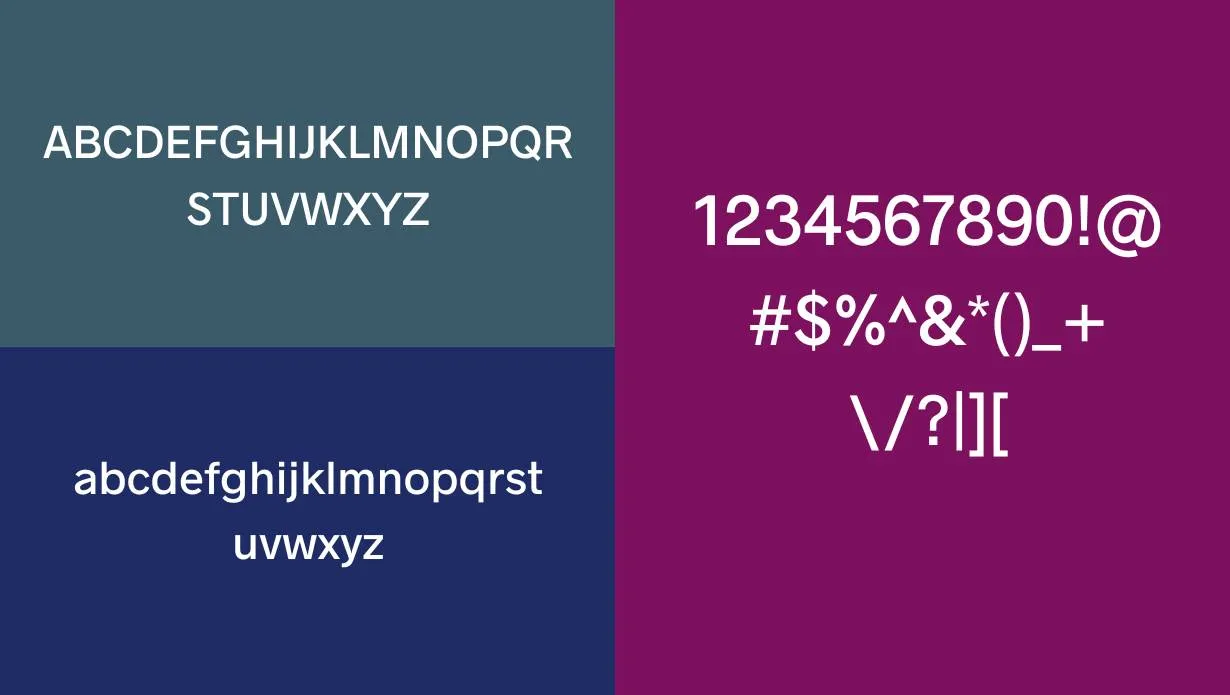
Radnika Font has a clean and modern design, suitable for a wide range of design applications.
Its straightforward lines and well-proportioned letterforms make it a practical choice for branding, web design, and packaging, providing a contemporary and organized aesthetic to your projects. For a design that is distinct and visually striking, consider combining this font with the Geo Sans Font.
| Name | Radnika Font |